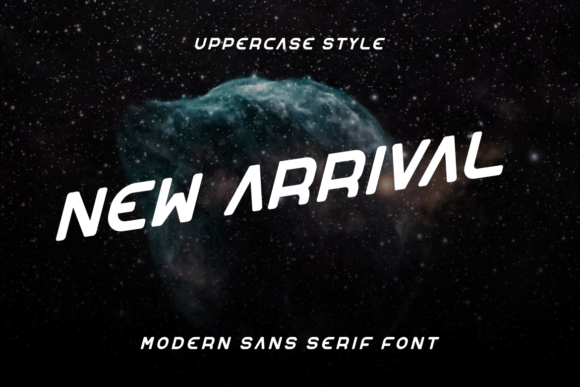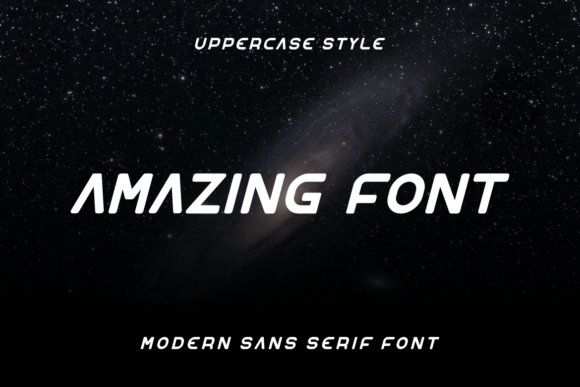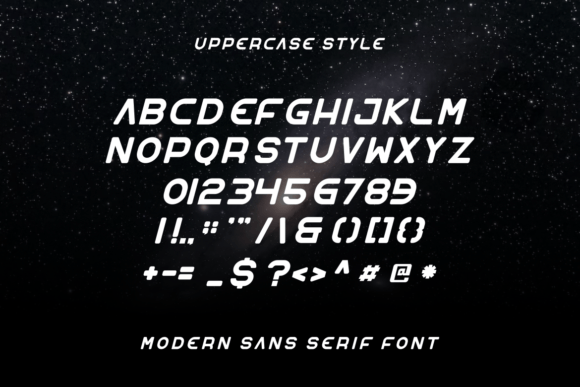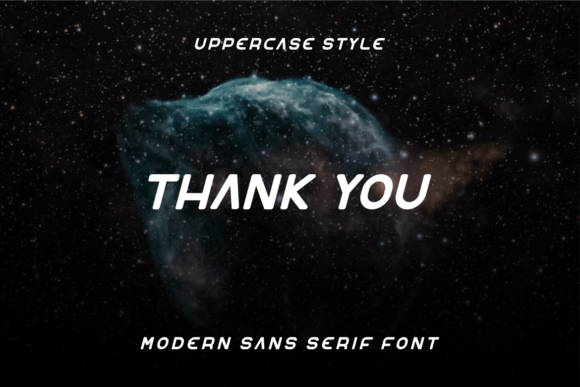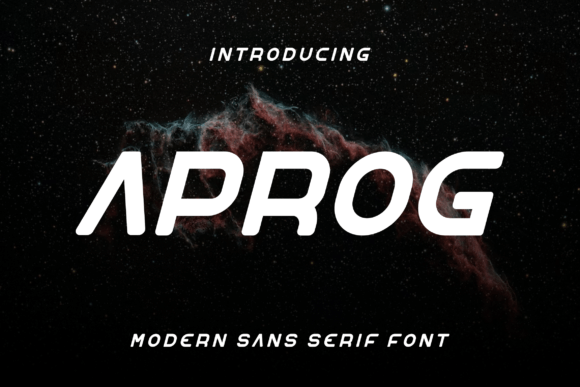
Introducing Aprog Font: The Modern Display Font for Bold Designs
We are excited to present our latest creation, Aprog Font, a modern display font that is sure to elevate your branding projects to the next level. Also known as Overe Font, this bold and authentic font is perfect for designers and crafters looking for a unique and versatile typeface.
Key Features of Aprog Font
- Bold and Authentic: Aprog Font is designed to make a statement. Its bold and authentic style ensures that your designs stand out from the crowd.
- Multi-Purpose: This font is perfect for a variety of branding projects, including logos, t-shirt printing, creative products, and more.
- Uppercase: Aprog Font features uppercase letters, making it ideal for attention-grabbing headlines and titles.
Why Choose Aprog Font?
With Aprog Font, you can add a touch of modernity and sophistication to your designs. Its bold and authentic style makes it perfect for:
- Logo Design: Create a lasting impression with a bold and memorable logo that showcases your brand’s personality.
- T-Shirt Printing: Add a professional touch to your t-shirt designs with a font that is both stylish and easy to read.
- Creative Products: Use Aprog Font to create eye-catching designs for a range of creative products, from posters to packaging.
Tips for Using Aprog Font
To get the most out of Aprog Font, here are a few tips:
- Use it as a Headline Font: Aprog Font is perfect for headlines and titles. Use it to grab attention and draw the reader in.
- Experiment with Colors: The bold style of Aprog Font makes it perfect for use with bright and bold colors.
- Pair it with Other Fonts: Try pairing Aprog Font with other fonts to create a unique and visually appealing design.
What Sets Aprog Font Apart
So, what makes Aprog Font different from other display fonts on the market?
- Unique Design: Aprog Font features a unique and authentic design that is sure to stand out from the crowd.
In conclusion, Aprog Font is a modern display font that is perfect for designers and crafters looking for a bold and authentic typeface. With its uppercase letters, OTF and TTF formats, and multi-purpose design, this font is sure to elevate your branding projects to the next level. So why wait? Download Aprog Font today and start creating stunning designs that make a statement!